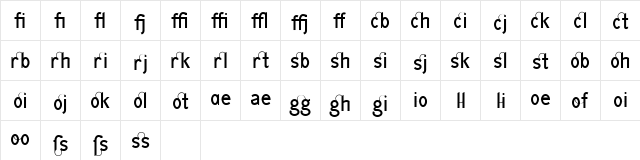
GfIndex-TSetLigs-Book Book
Design Context for GfIndex-TSetLigs-Book Typeface
GfIndex-TSetLigs-Book offers clean, dependable letterforms without strong stylistic allegiance, making it a practical choice for designers who need flexibility.
Pro Tip: Use GfIndex-TSetLigs-Book in both headline and body roles to test its range before committing to a single application.